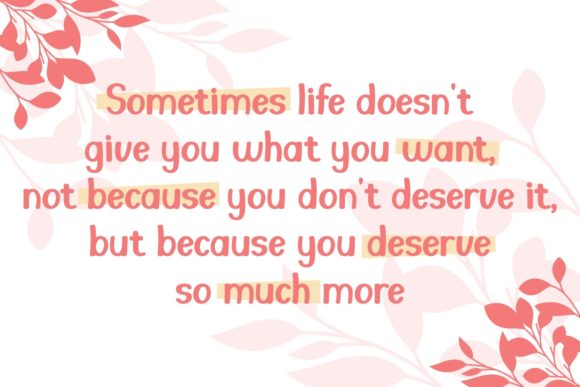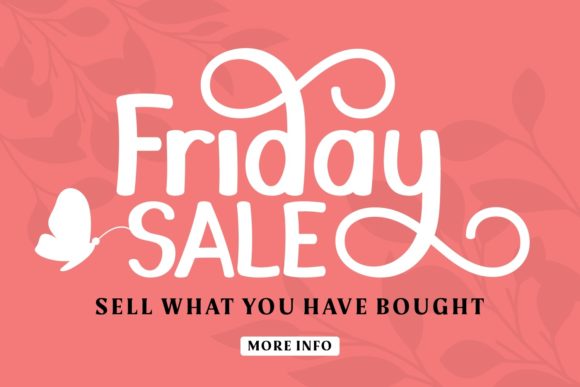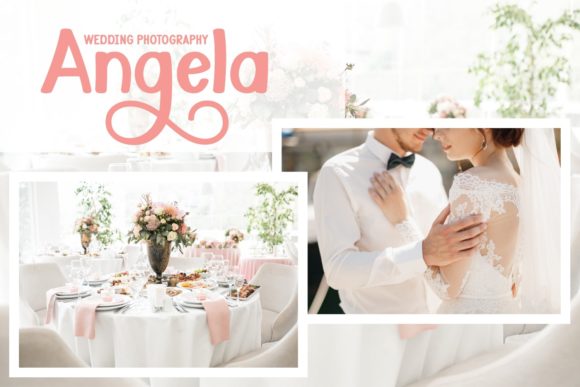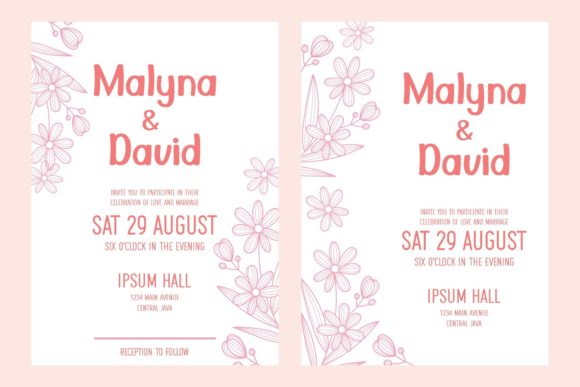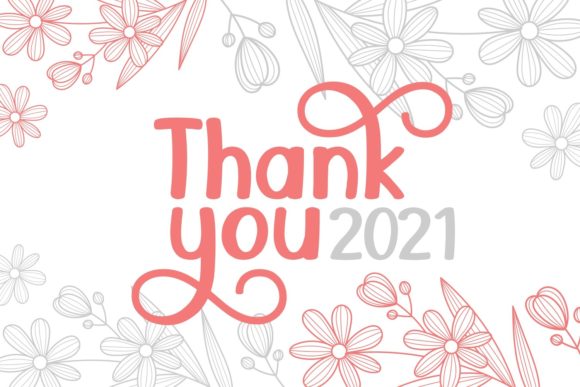
Introduction to Malyna Font
Have you ever stared at a blank canvas, struggling to bring your creative project to life? You’ve got a clear vision in your mind, but the right design resource is missing. That’s where the Malyna Font comes in – a chic and exquisite script font that exudes elegance and class. This beautiful font is perfect for designers who need a refreshing look to elevate their designs.
| 👤 Author | Rydmaker (7NTypes) |
With its PUA encoding, accessing all glyphs and swashes is a breeze. Whether you’re working on a high-quality design for a client or creating something special for yourself, the Malyna Font is sure to impress. And the best part? It’s available for free download, making it an accessible resource for designers of all levels.
Key Features of Malyna Font
- Unique, elegant script font with a transparent background, perfect for adding a touch of sophistication to designs.
- Font size: 1024 glyphs, providing a comprehensive set of characters for various languages and creative applications.
- Malyna Font is ideal for use in logos, branding, invitations, and other creative projects where a stylish, handwritten feel is desired.
Honest Review: Malyna Font
I recently stumbled upon the Malyna Font while searching for a design resource for a creative project. As a designer, I’m always on the lookout for high-quality fonts that can elevate my work. After using Malyna Font, I’m excited to share my honest review with you.
What works well: ✨ The font has a beautiful, elegant script style that’s perfect for wedding invitations, quotes, or any other creative project that requires a touch of sophistication. The Malyna Font is also available for free download, which is a major bonus for designers on a budget.
- High-quality design: The font’s design is impeccable, with a clear and transparent background that makes it easy to work with.
- Perfect for creative projects: The Malyna Font is ideal for any project that requires a touch of elegance and sophistication.
Limitations: ⚠️ While the Malyna Font is an excellent resource, it’s not suitable for all types of projects. The font’s script style may not be the best choice for projects that require a bold or sans-serif font.
Overall impression: I’m thoroughly impressed with the Malyna Font, and I would highly recommend it to any designer looking for a high-quality, elegant font for their next creative project.
The Malyna Font is perfect for creating designs for business cards, brochures, posters, and social media graphics. It’s also great for use in presentations, reports, and documents where a professional and elegant look is required.